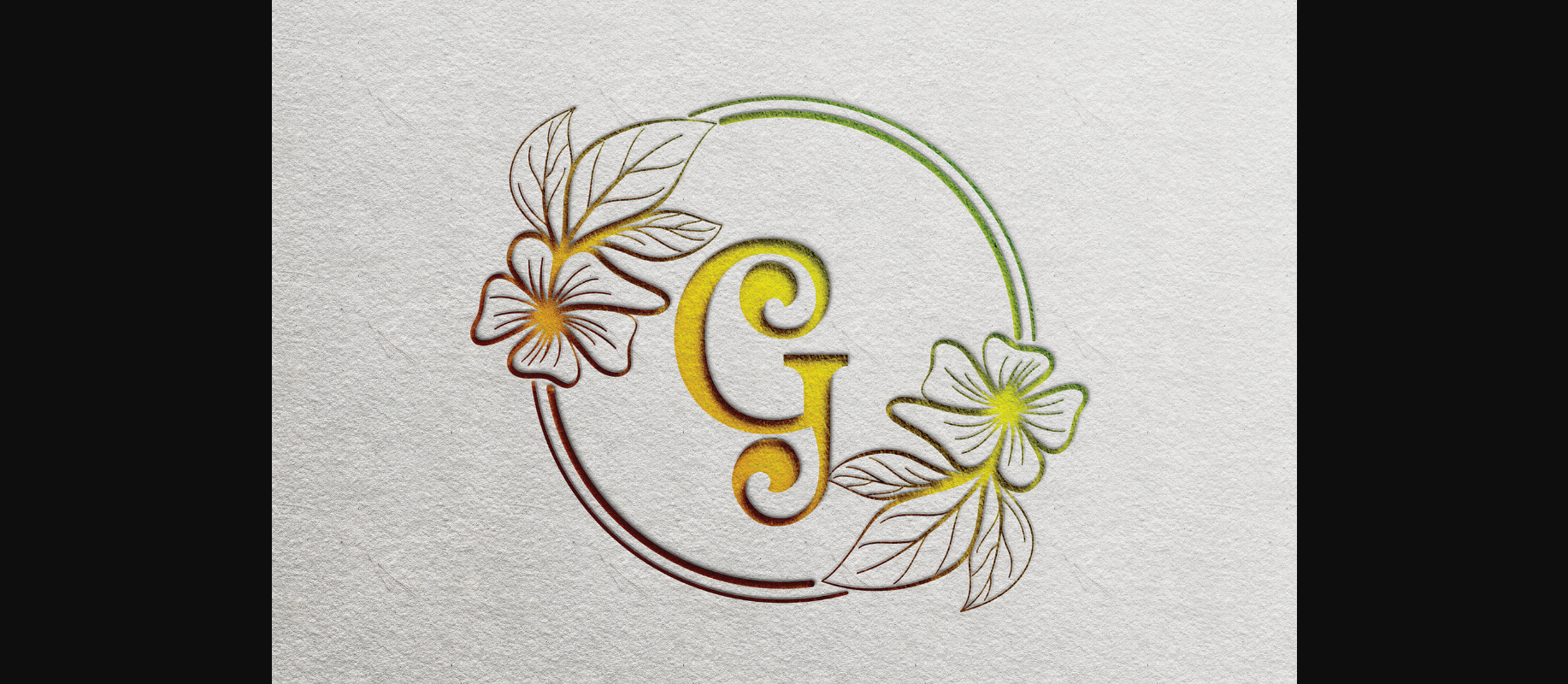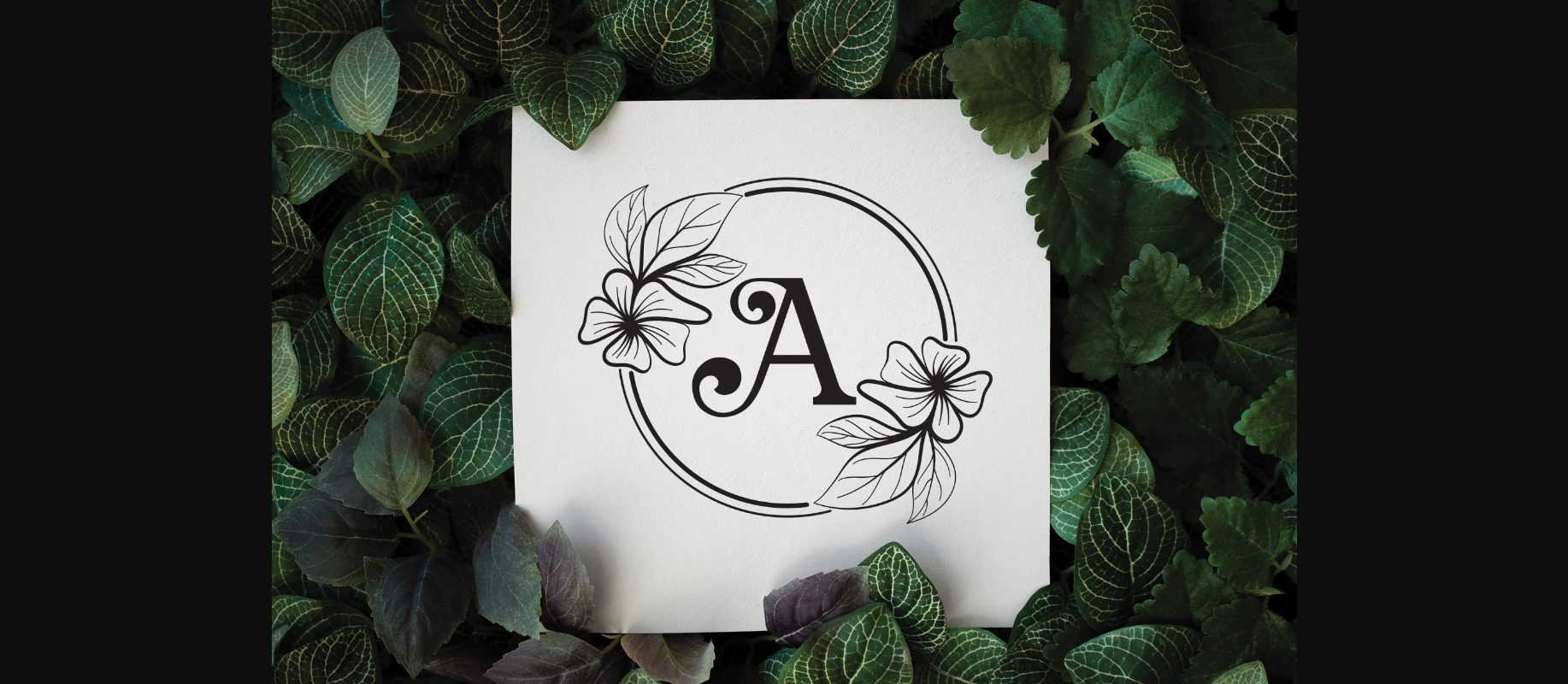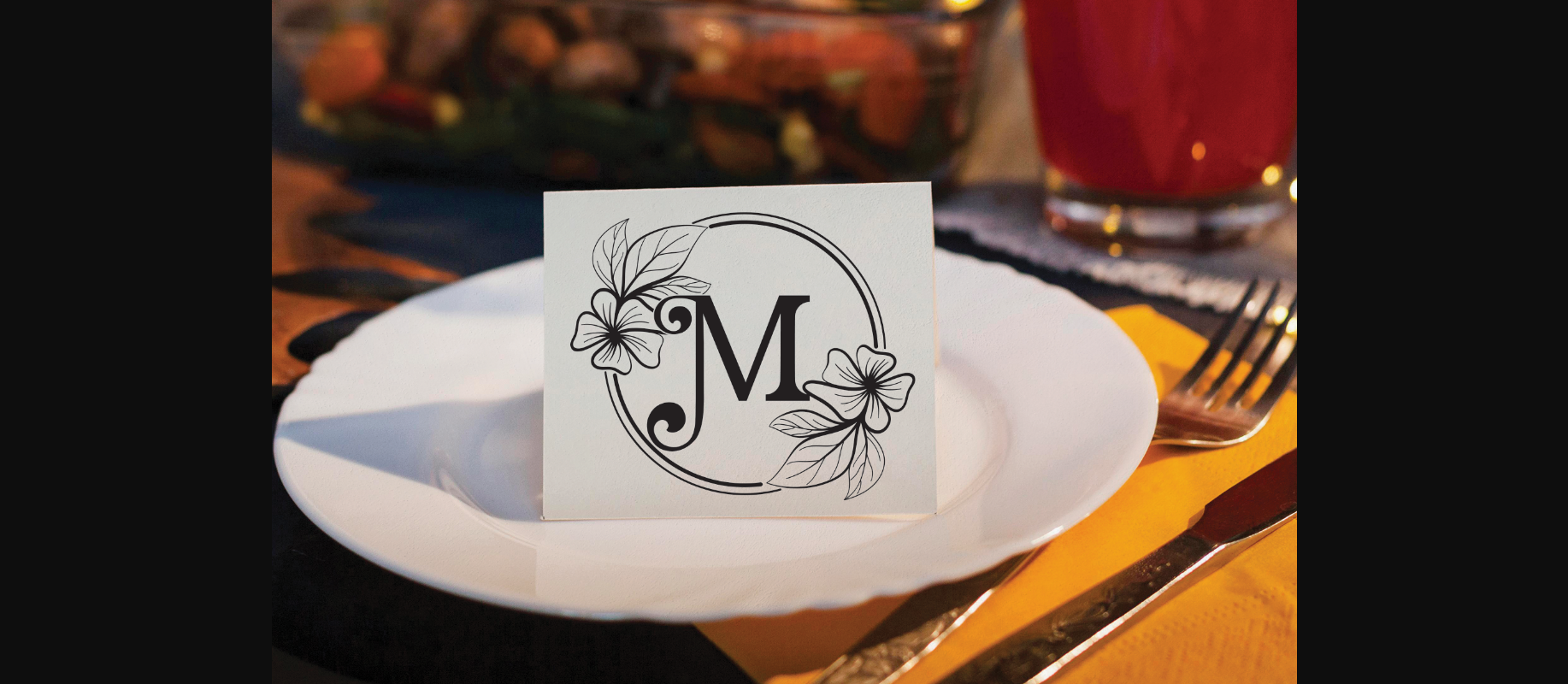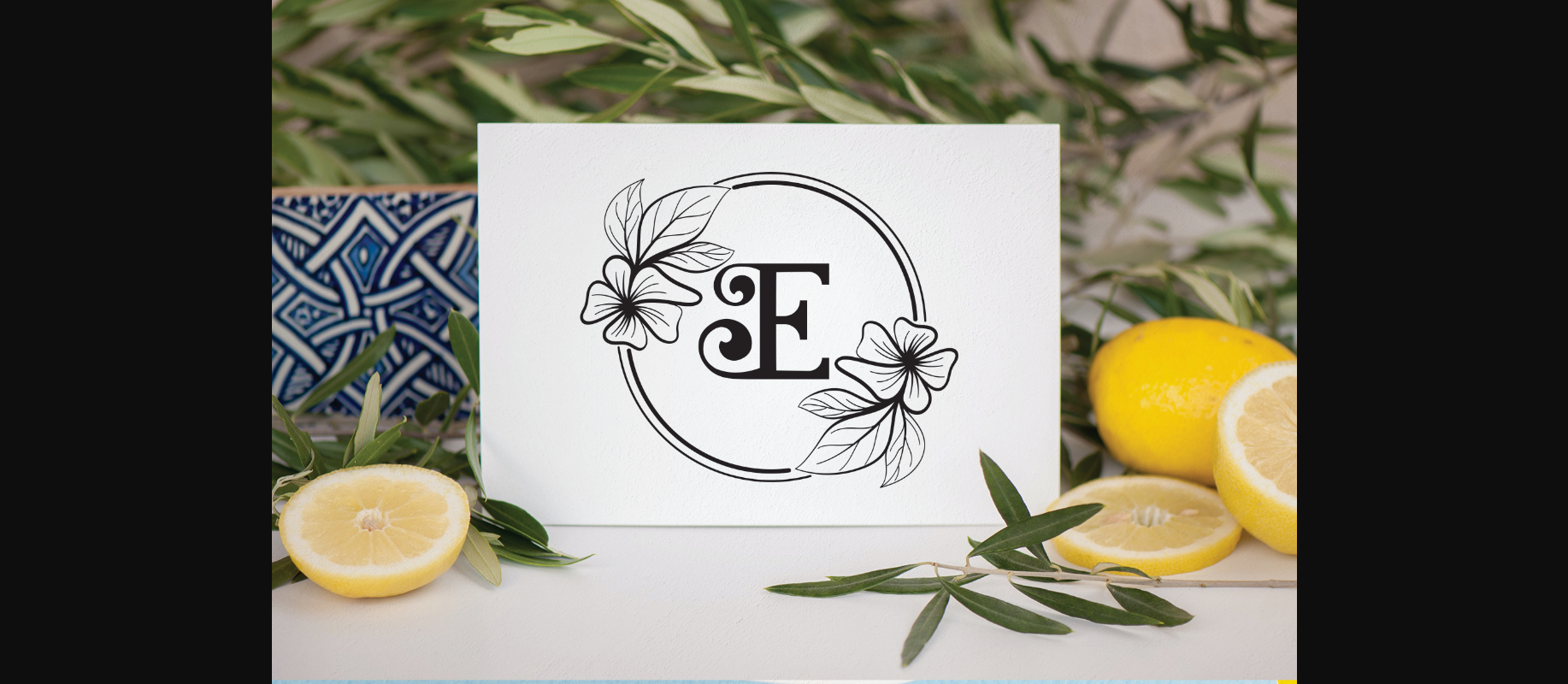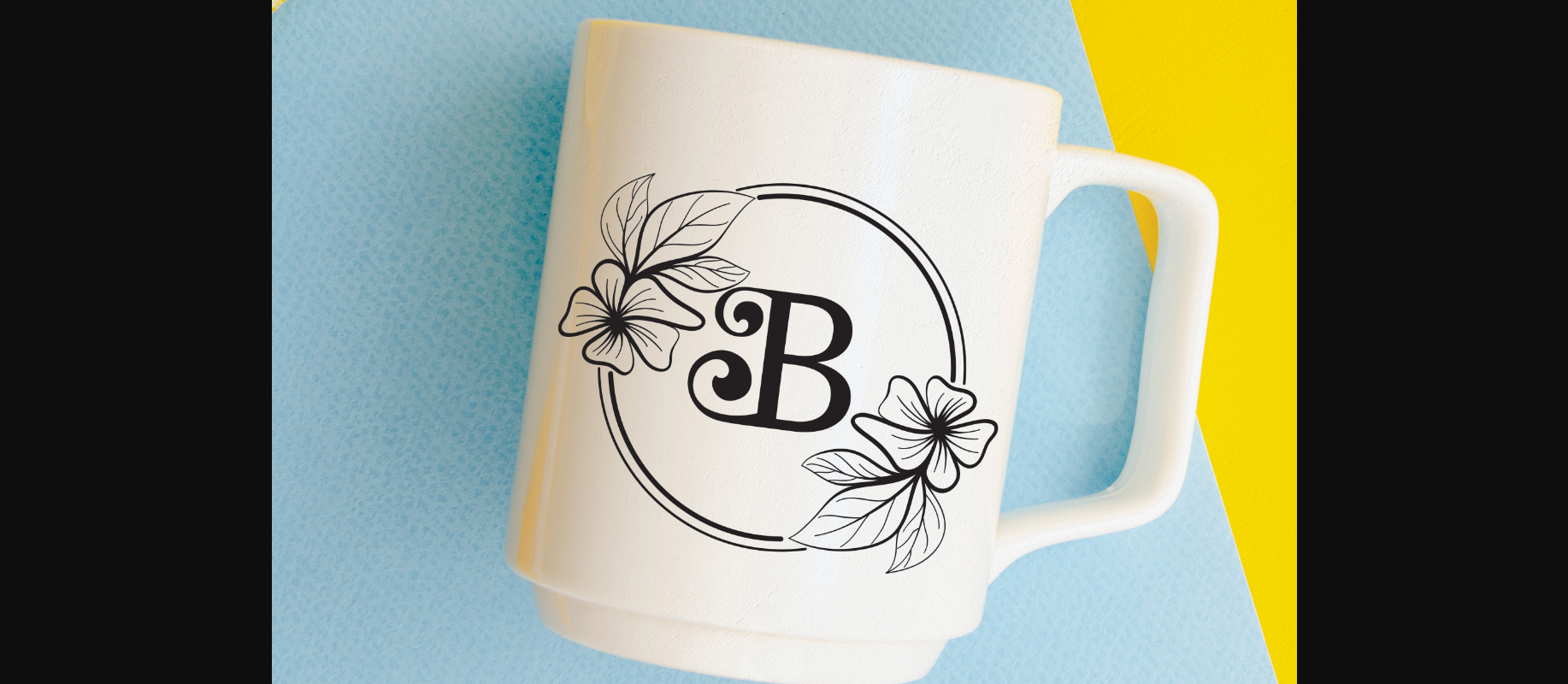
Glossy Monogram Font
About Glossy Monogram Font
Glossy Monogram is a beautiful and delicate decorative font. Fall for its ravishing style and use it to create gorgeous wedding invitations, beautiful stationary art, eye-catching social media posts, and much more!